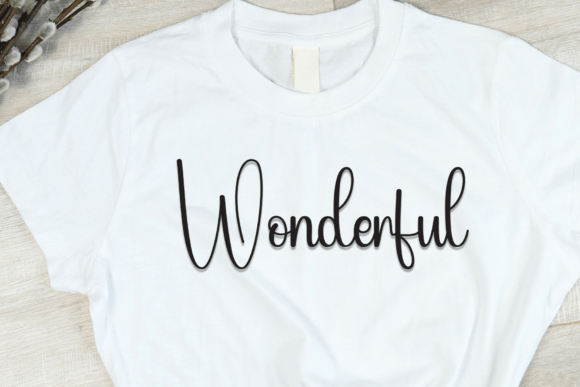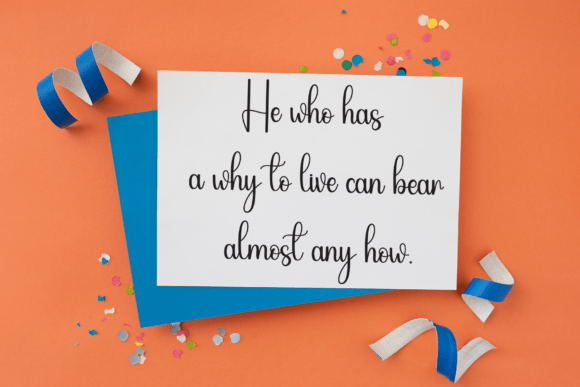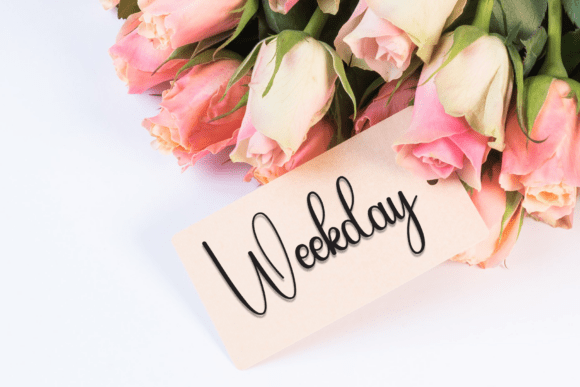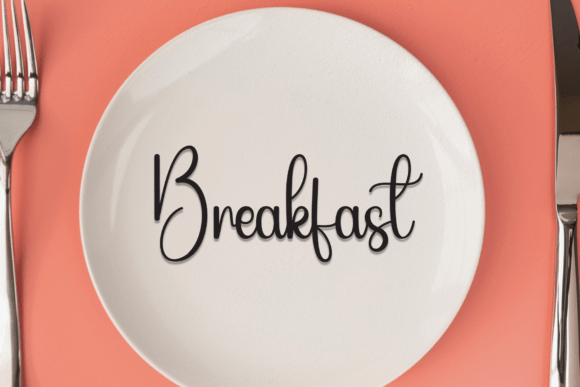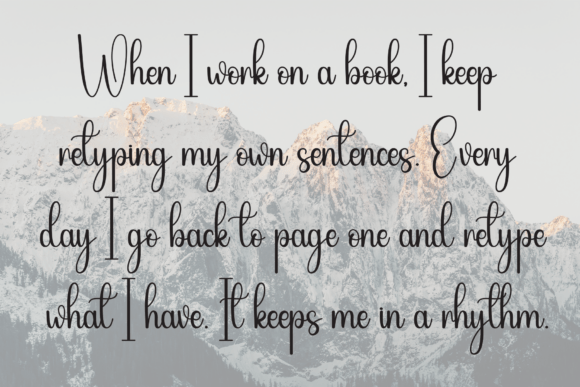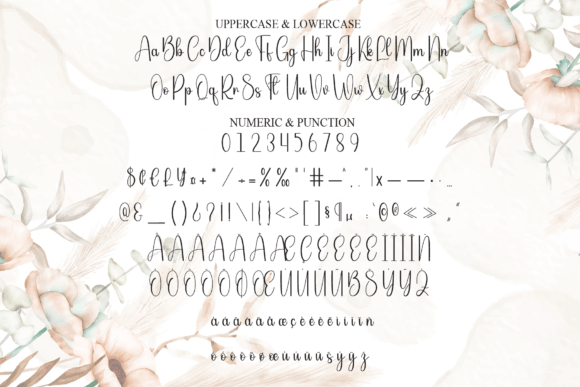
Introducing Amastay Font: Elevate Your Designs with Elegance and Playfulness
In the world of typography, a well-crafted font can make all the difference in transforming a design from ordinary to extraordinary. Amastay Font is a stunning example of a stylish handwritten script font that seamlessly blends modern elegance with a playful touch. Its fluid strokes and charming curves bring a personal feel to any design, making it an ideal choice for designers and crafters looking to add warmth, sophistication, and creativity to their projects.
The Unique Charm of Amastay Font
Amastay Font boasts a distinctive character that sets it apart from other script fonts. Its fluid strokes and carefully crafted curves give it a lively, yet refined appearance. This font is perfect for designs that require a touch of personality, such as logos, packaging, invitations, and more. Whether you’re creating a brand identity, designing a product label, or crafting a beautiful invitation, Amastay Font is sure to make your project stand out.
Key Features of Amastay Font
- Modern Elegance: Amastay Font exudes a sense of sophistication and modernity, making it perfect for designs that require a touch of luxury.
- Playful Touch: The font’s playful curves and fluid strokes add a whimsical touch to any design, making it ideal for projects that require a bit of personality.
- Versatility: Amastay Font is highly versatile and can be used for a wide range of design projects, from logos and packaging to invitations and more.
- Readability: The font is highly legible, making it perfect for designs that require a clear and concise message.
Ideal Uses for Amastay Font
Amastay Font is an excellent choice for a variety of design projects, including:
- Logo Design: Create a memorable brand identity with Amastay Font’s unique and stylish script.
- Packaging Design: Add a touch of elegance and sophistication to your product packaging with this beautiful font.
- Invitation Design: Create stunning invitations for weddings, parties, and other special events with Amastay Font’s playful and refined script.
- Stationery Design: Elevate your stationery designs with Amastay Font’s modern elegance and charm.
Tips for Using Amastay Font Effectively
To get the most out of Amastay Font, here are a few tips to keep in mind:
- Pair with contrasting fonts: Combine Amastay Font with a contrasting font to create visual interest and hierarchy in your design.
- Experiment with colors: Try out different color combinations to find the perfect match for your design and brand identity.
- Pay attention to spacing: Make sure to adjust the spacing between letters and words to ensure optimal readability and aesthetics.
Amastay Font is a versatile and stylish handwritten script font that can elevate any design with its modern elegance and playful touch. Its fluid strokes and charming curves make it perfect for a wide range of design projects, from logos and packaging to invitations and more. With its high legibility and versatility, Amastay Font is an excellent choice for designers and crafters looking to add warmth, sophistication, and creativity to their projects.